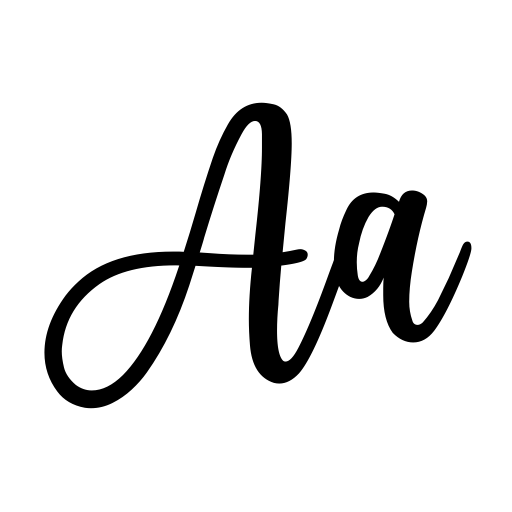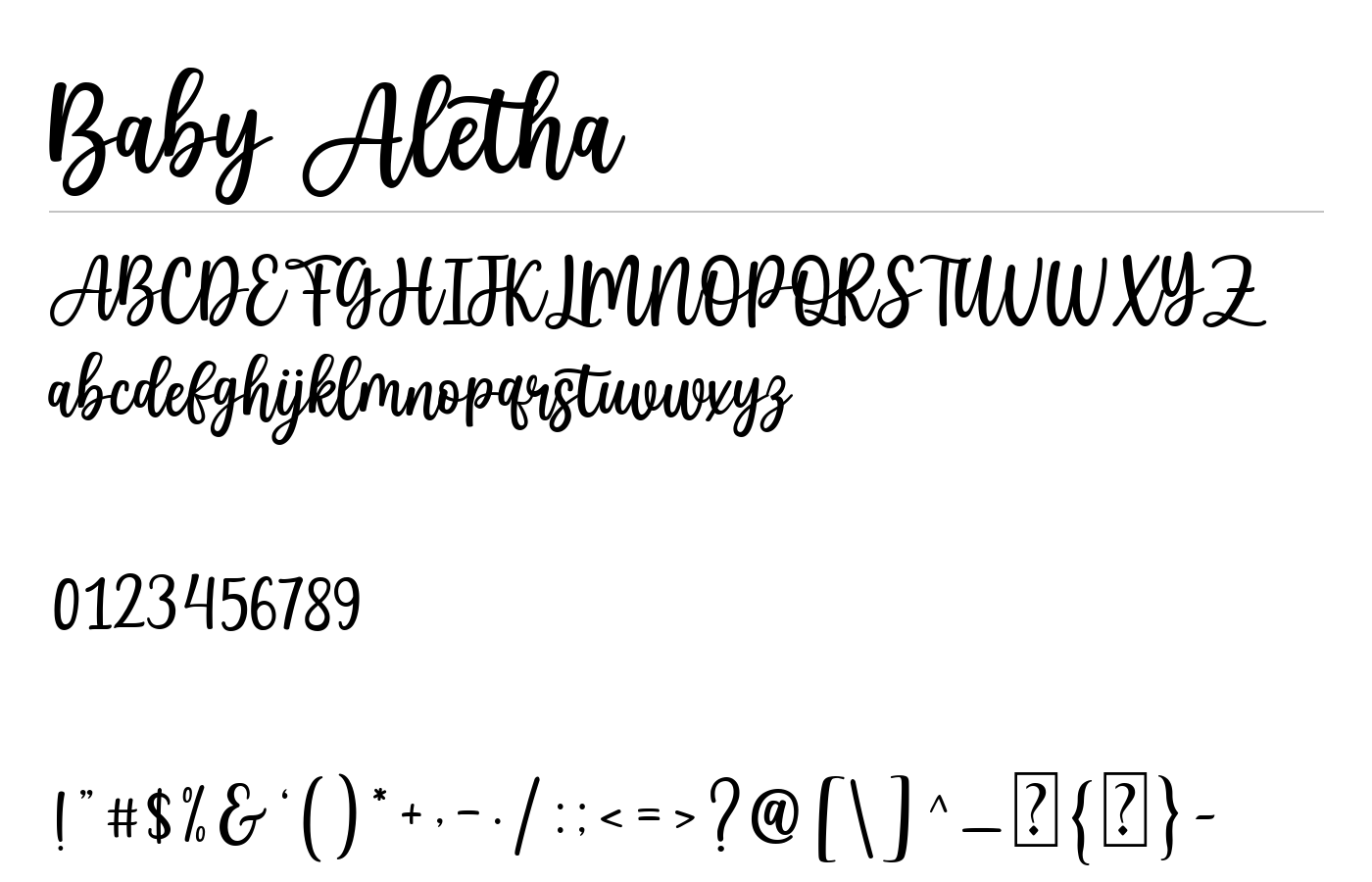
Baby Aletha is a graceful script font with a smooth, flowing style characterized by its medium weight and slightly condensed letterforms. It offers a friendly, elegant personality with clean, rounded strokes and playful, looping capitals that feel both modern and approachable. This font works beautifully for branding, invitations, and headlines where a personal, handwritten touch is desired.
Baby Aletha Font
About Baby Aletha Font